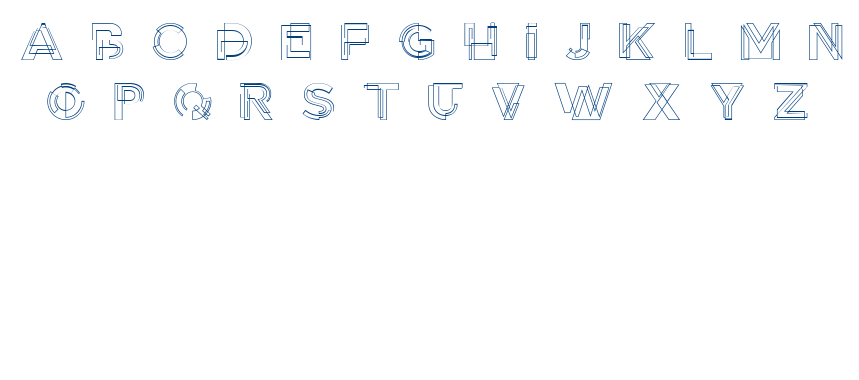
Tiny Small Medium Large TESLA font Lexi Griffith Website TESLA.ttf Download 4807 downloads Freeware Category: Basic » Various The inspiration for this typeface was found in the circuitry of lightbulb filament and wiring intricately crossing paths. Character Map specimen sheet